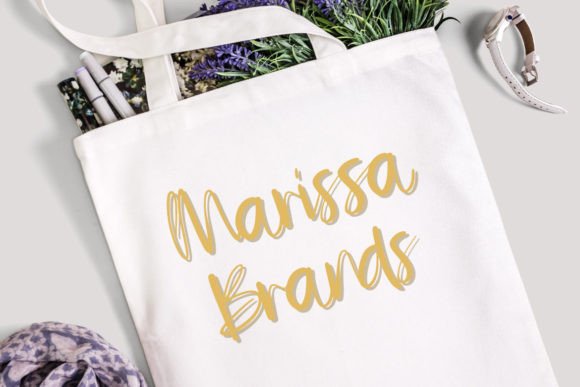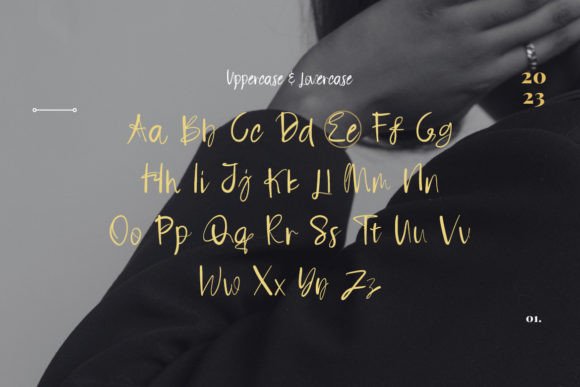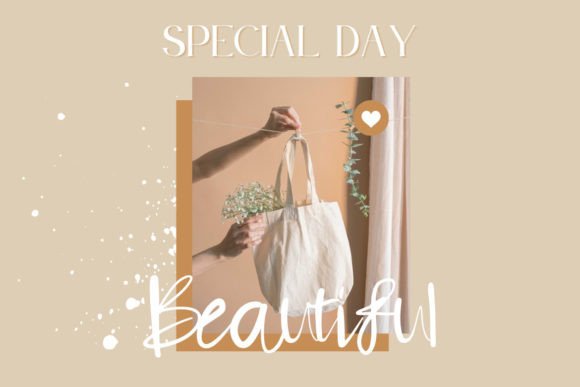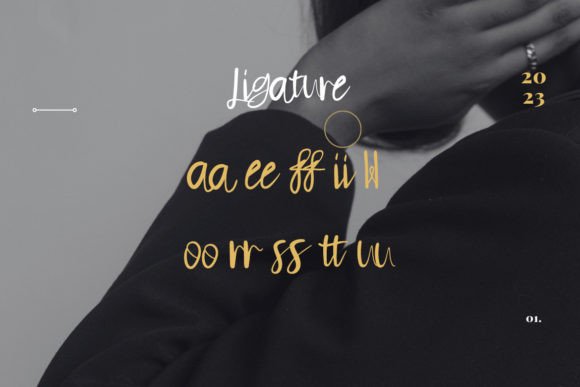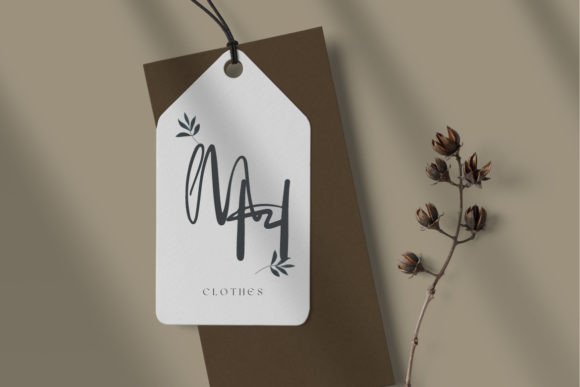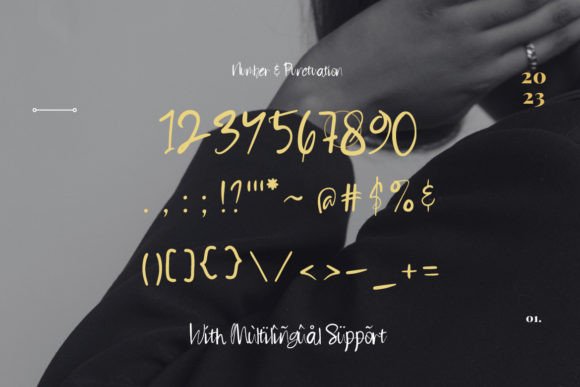
Introduction to Marissa Bellas Font Font
Fonts play a crucial role in design, and the Marissa Bellas Font font is a typeface that brings both character and versatility to any project. Whether you’re working on a branding project, a website, or a print design, the Marissa Bellas Font font offers a unique style that can elevate your work.
Marissa Bellas is a cozy and inviting handwritten font that captures the warmth and comfort of a local café.
Its gentle and flowing letterforms create a sense of relaxation and coziness, making it an ideal choice for menu design, signage, and other design projects that call for a touch of rustic charm .
Key Features of Marissa Bellas Font Font
Why Choose Marissa Bellas Font Font?
The Marissa Bellas Font font is more than just a typeface – it’s a design tool that helps you communicate your message with style and clarity. Its unique character set and versatile design make it suitable for a wide range of applications, from elegant invitations to bold headlines.
With its carefully crafted letterforms and balanced proportions, the Marissa Bellas Font font ensures readability and visual appeal across all mediums.
What makes Marissa Bellas Font font special?
The Marissa Bellas Font font stands out with its unique design, exceptional readability, and versatility across various design applications.